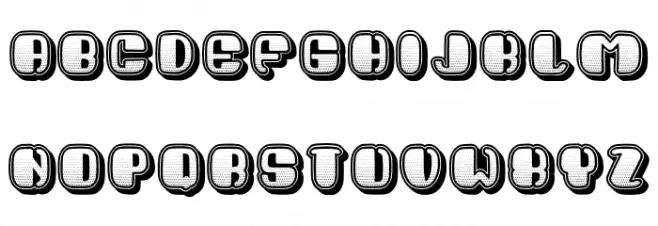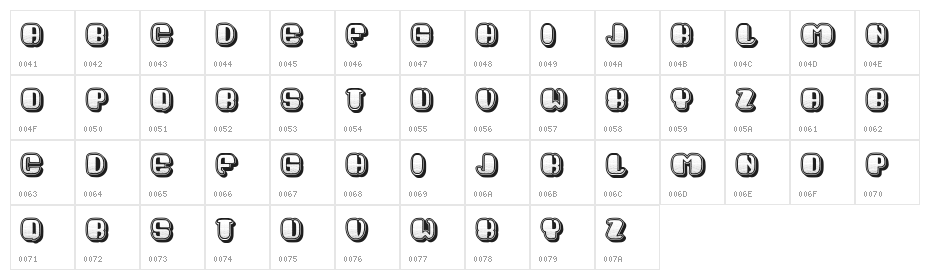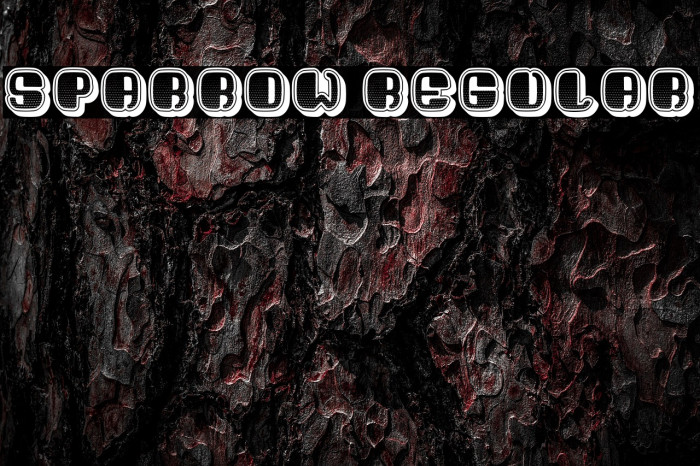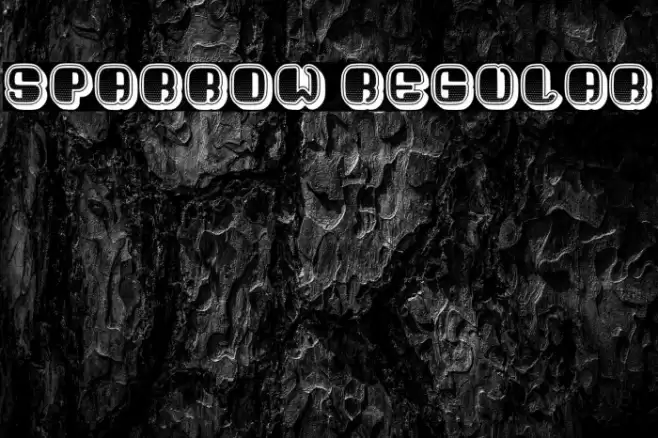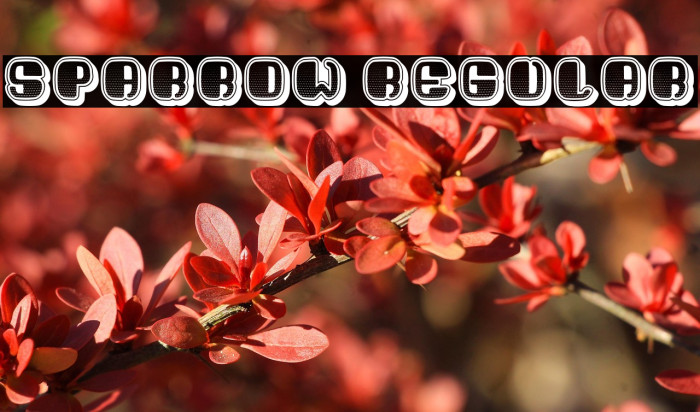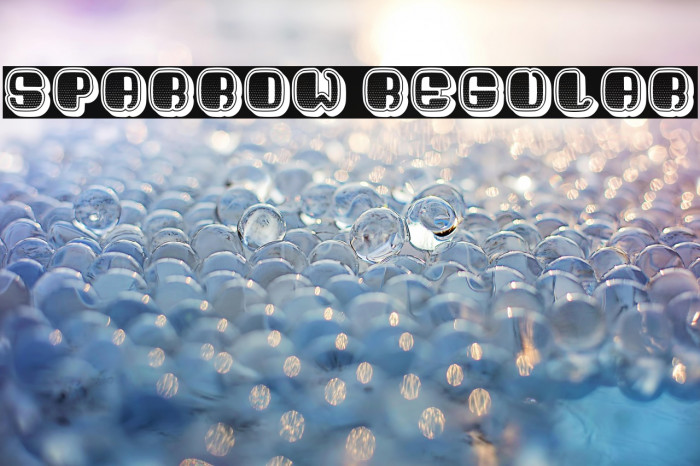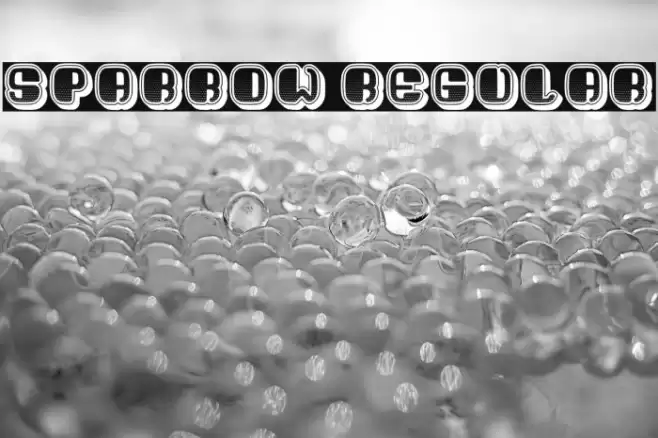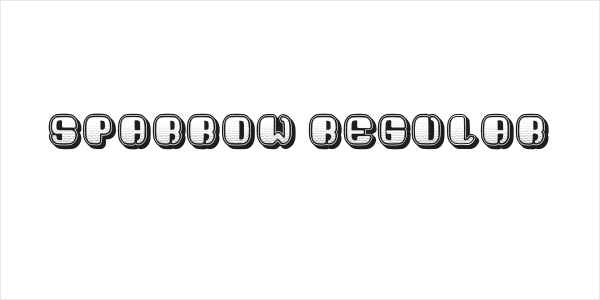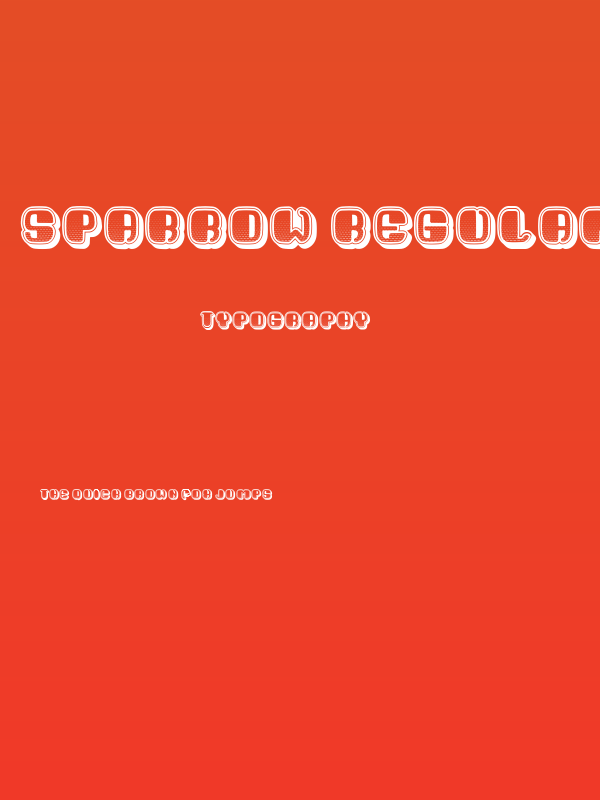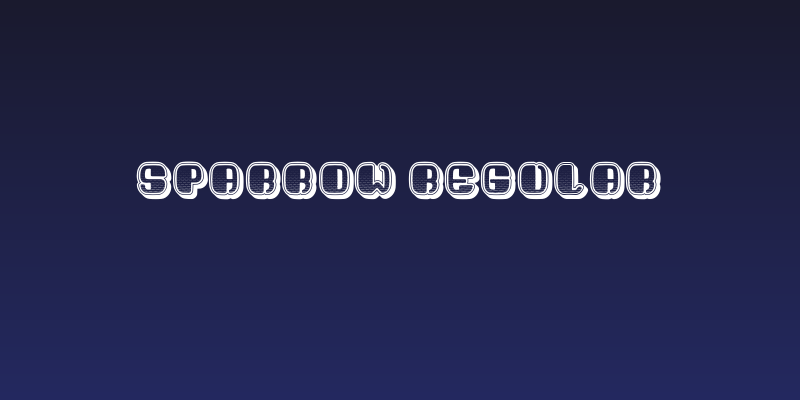
Sparrow Regular Font
Sparrow Regular Description
This font features a bold, playful style with a three-dimensional effect that gives each character a sense of depth. The letters are outlined with a thick black border, and the interior is filled with a dotted pattern, adding texture and visual interest. The overall design is rounded and bubbly, making it stand out with a cartoonish, fun vibe. The uppercase and lowercase letters maintain a consistent style, ensuring uniformity across the typeface. This font is eye-catching and ideal for designs that require a lively and dynamic appearance.
| Overall Style | Playful, Cartoonish |
| Proposed Projects | Ideal for children's book covers, comic strips, playful branding, and event posters. |